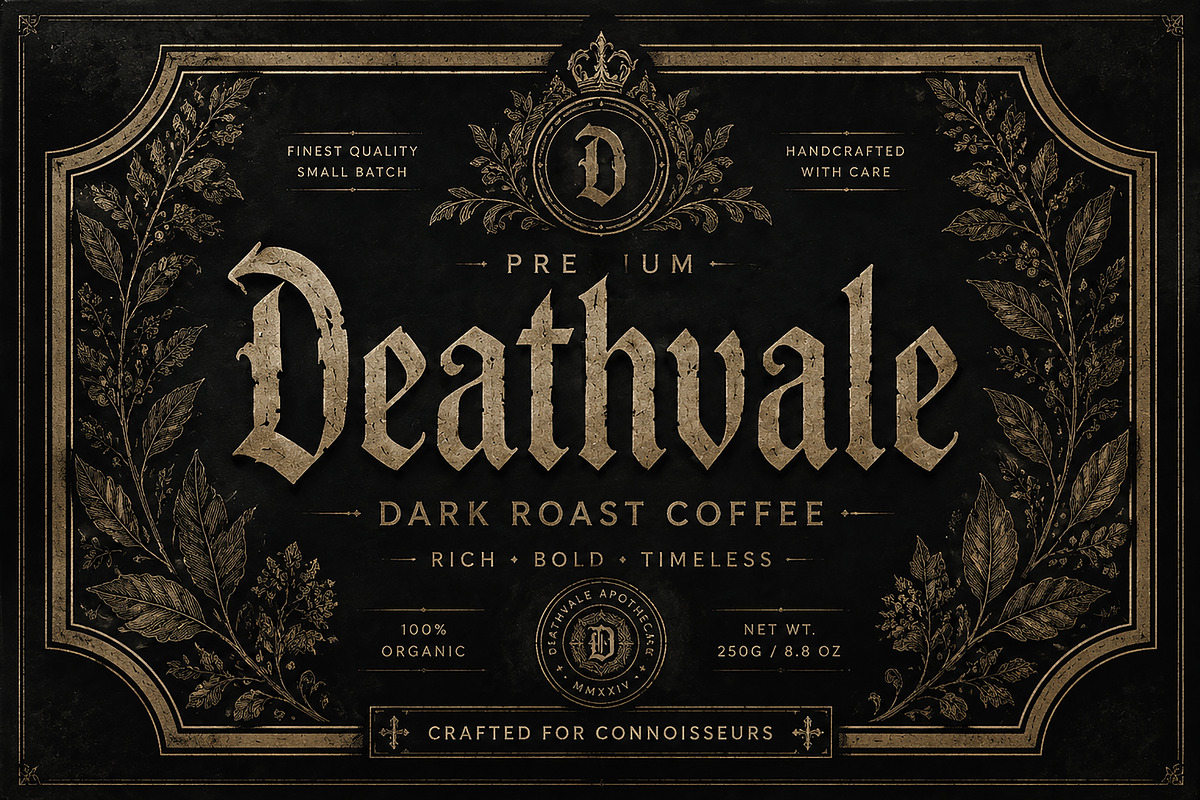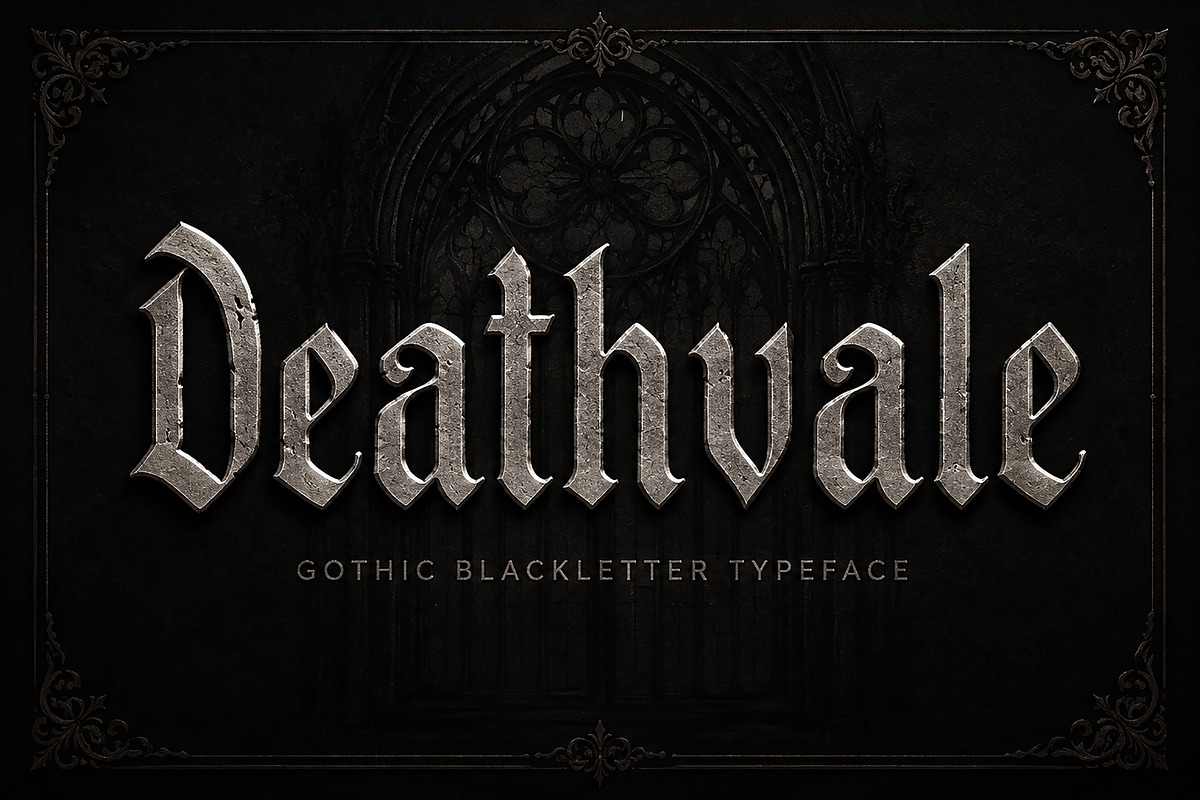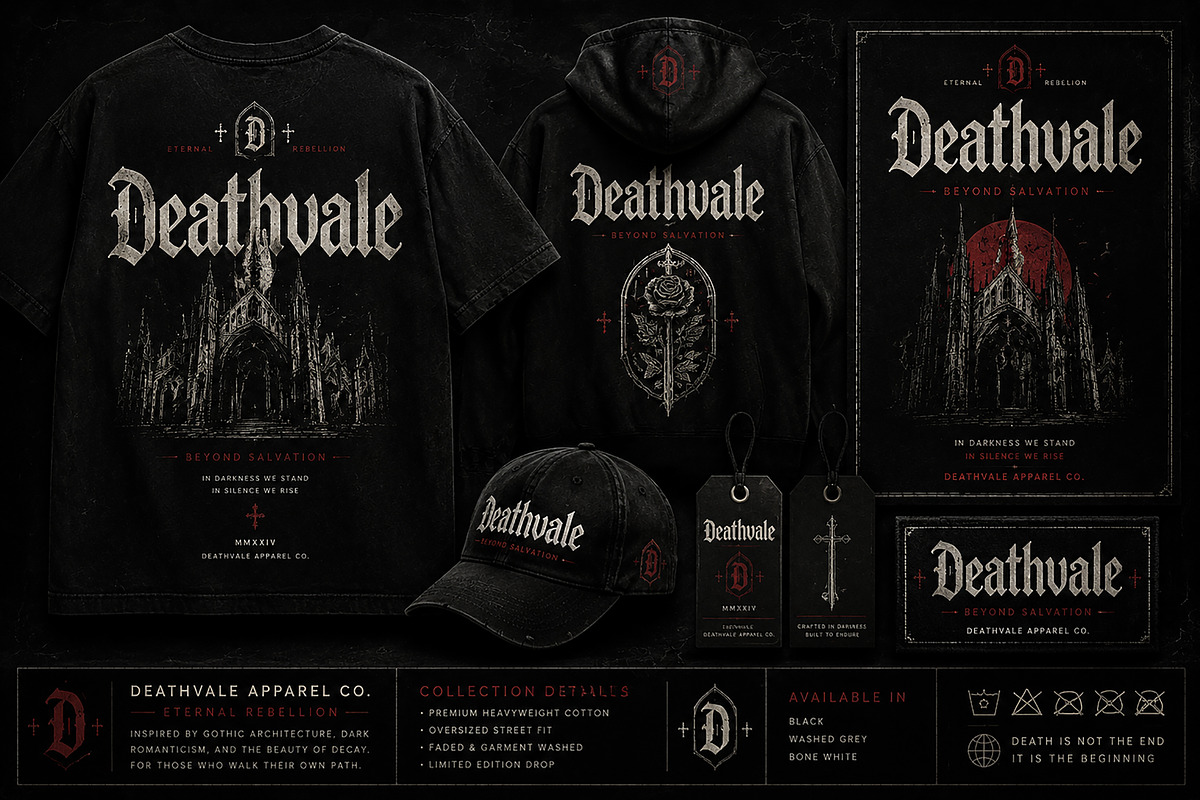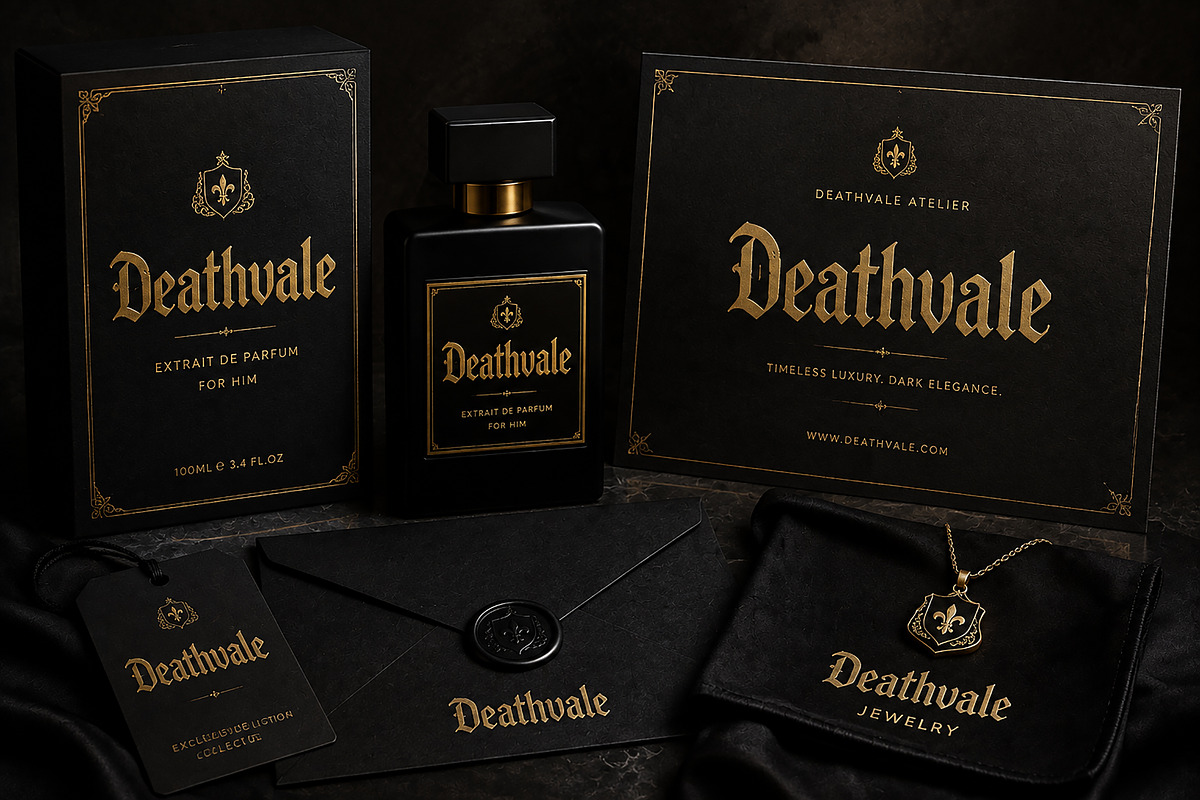
Deathvale
Deathvale is a powerful Gothic Blackletter typeface inspired by medieval architecture, dark luxury aesthetics, and vintage lettering traditions. Designed with sharp medieval forms, dramatic strokes, and a bold historical character, Deathvale brings a premium dark atmosphere to every design project.
Perfect for creating luxury branding, metal band logos, album covers, gothic posters, streetwear designs, tattoo artwork, packaging, invitations, labels, and alternative fashion identities.
Deathvale combines an old-world medieval spirit with a modern commercial feel, making it suitable for designers who want to create bold, mysterious, and unforgettable visual identities.
✓ Gothic Blackletter / Medieval Typeface Style
✓ Strong and distinctive letterforms
✓ Perfect for logos and brand identities
✓ Ideal for posters, apparel, and merchandise
✓ Great for album artwork and music branding
✓ Suitable for packaging and label design
✓ Premium dark luxury aesthetic
Recommended Uses:
Gothic Logos
Luxury Branding
Metal & Rock Music Artwork
Streetwear & Fashion Labels
Tattoo Designs
Horror & Dark Fantasy Projects
Vintage Packaging
Event Posters
Product Labels
Create powerful designs with the timeless darkness of Deathvale Gothic Blackletter Typeface.
Deathvale is a dark luxury Gothic Blackletter font inspired by medieval lettering, gothic architecture, and vintage design. Perfect for logos, branding, posters, apparel, album covers, packaging, and premium alternative designs. OTF format included.